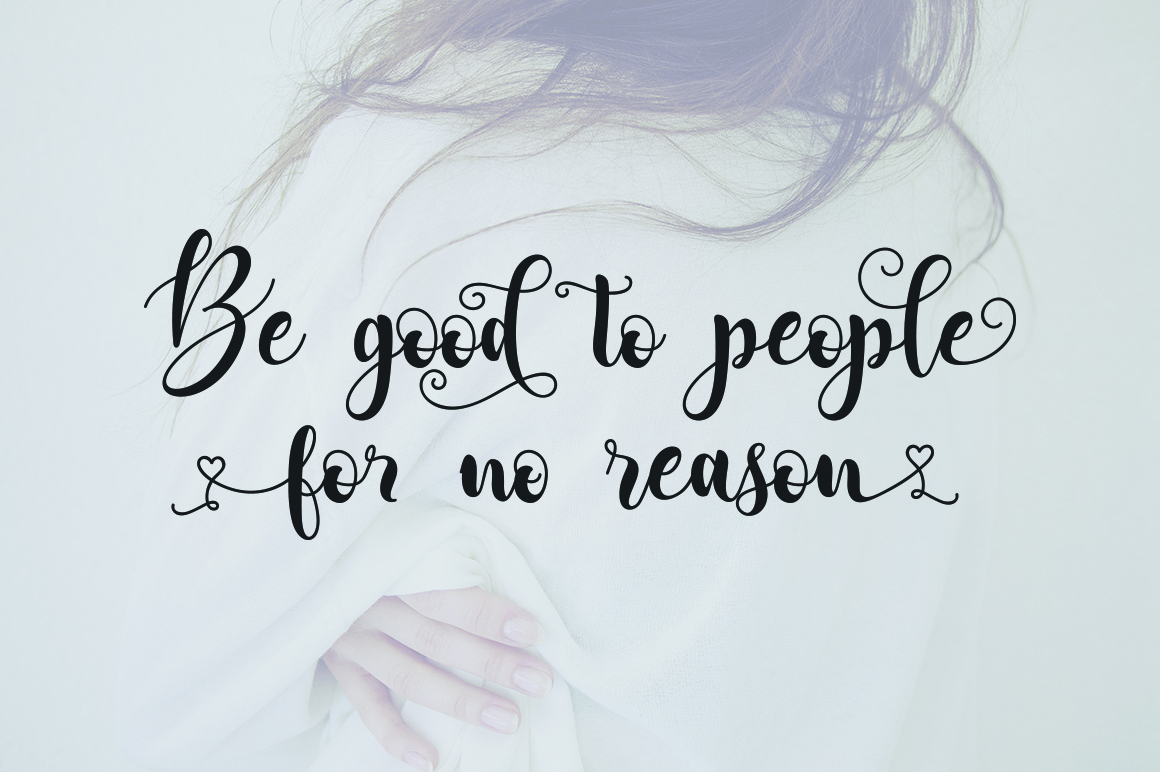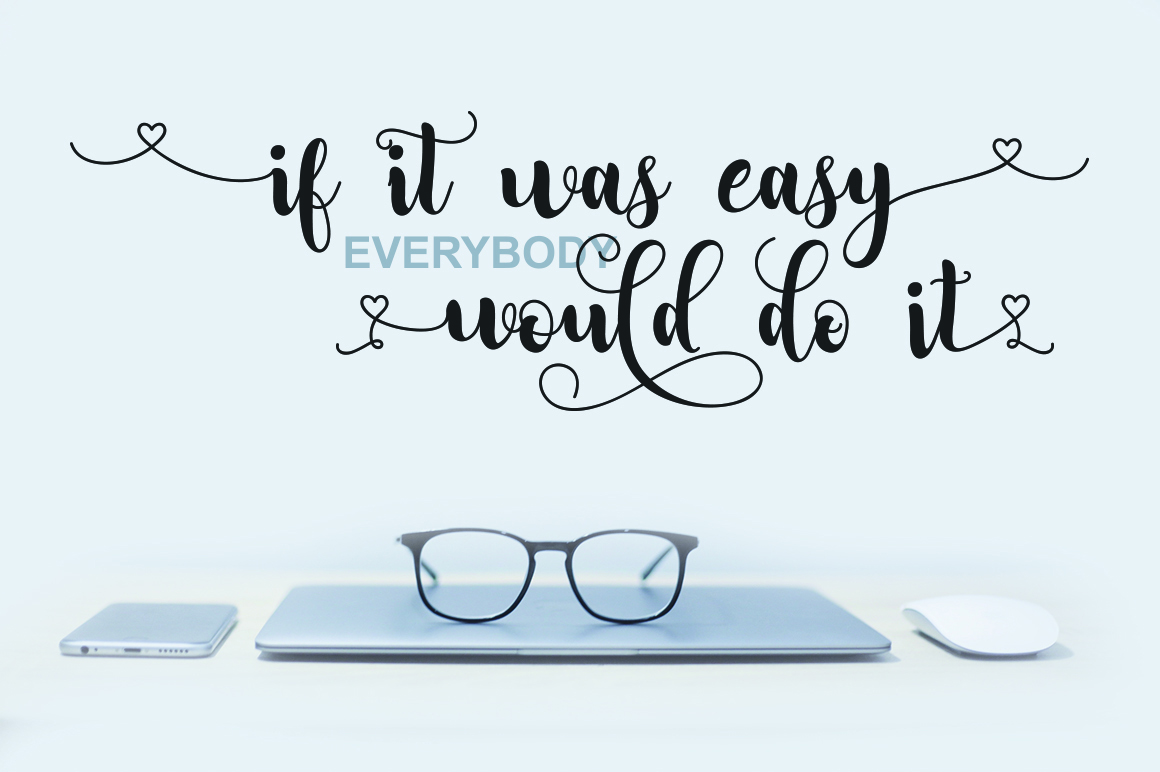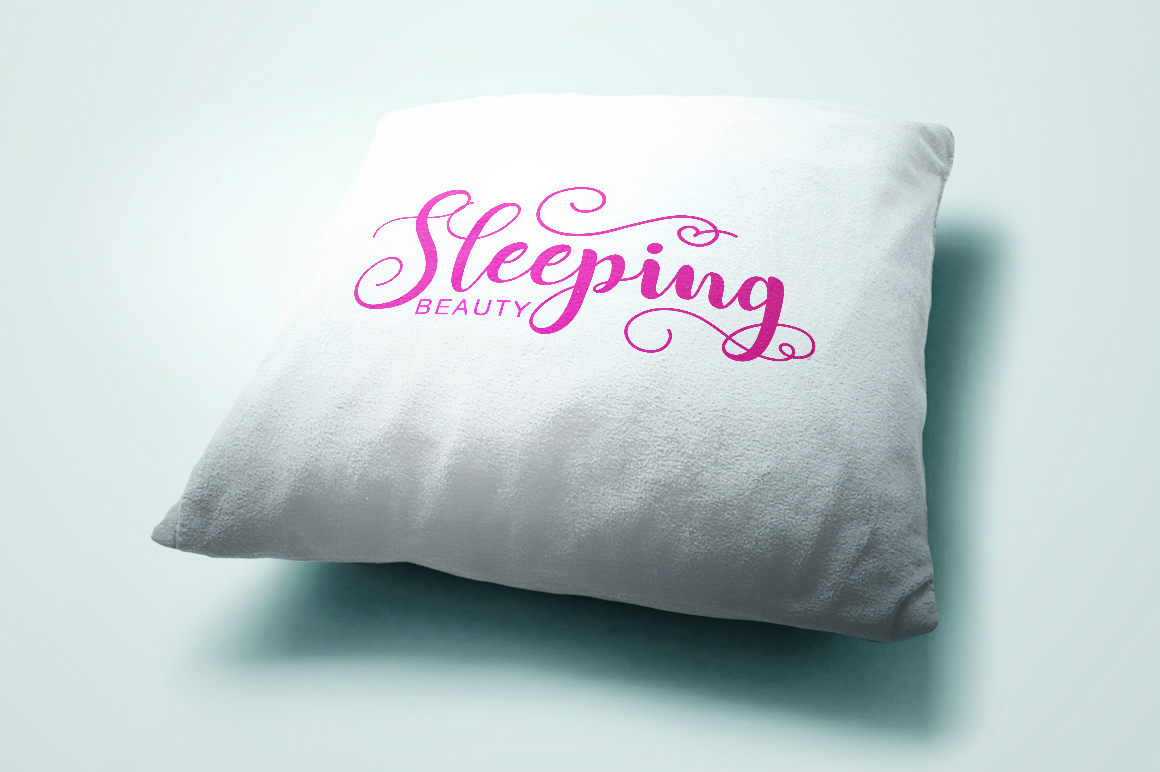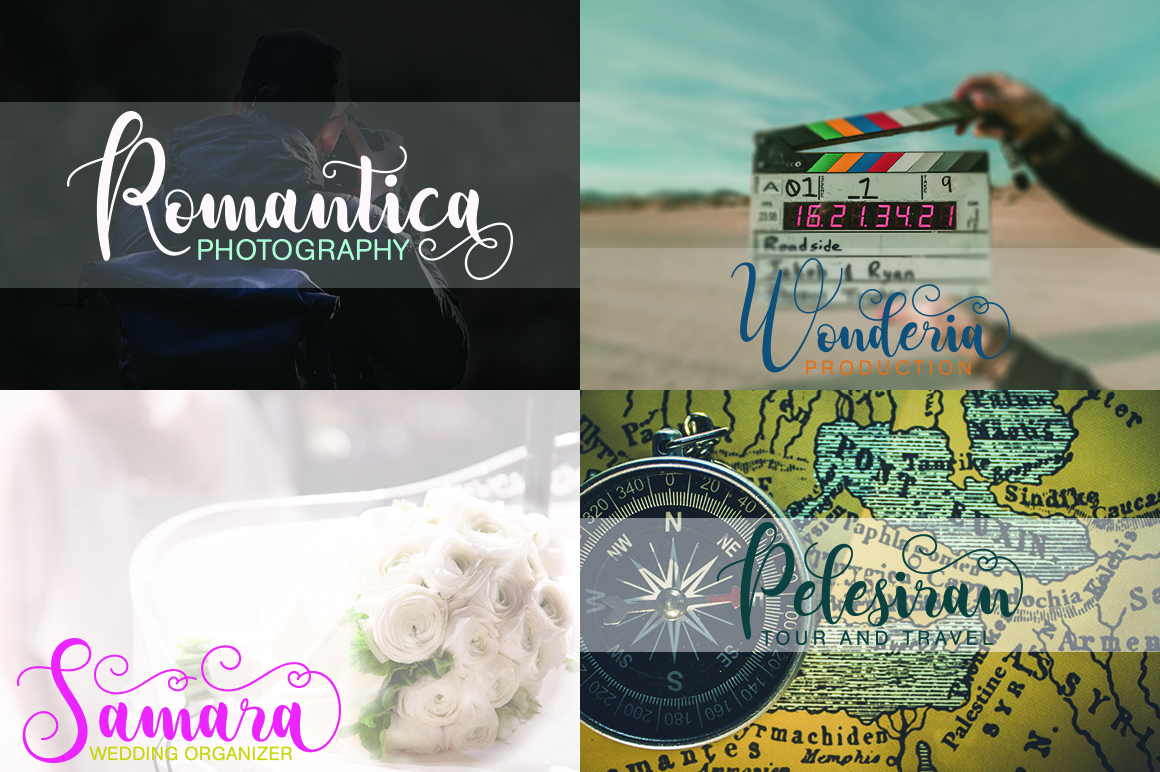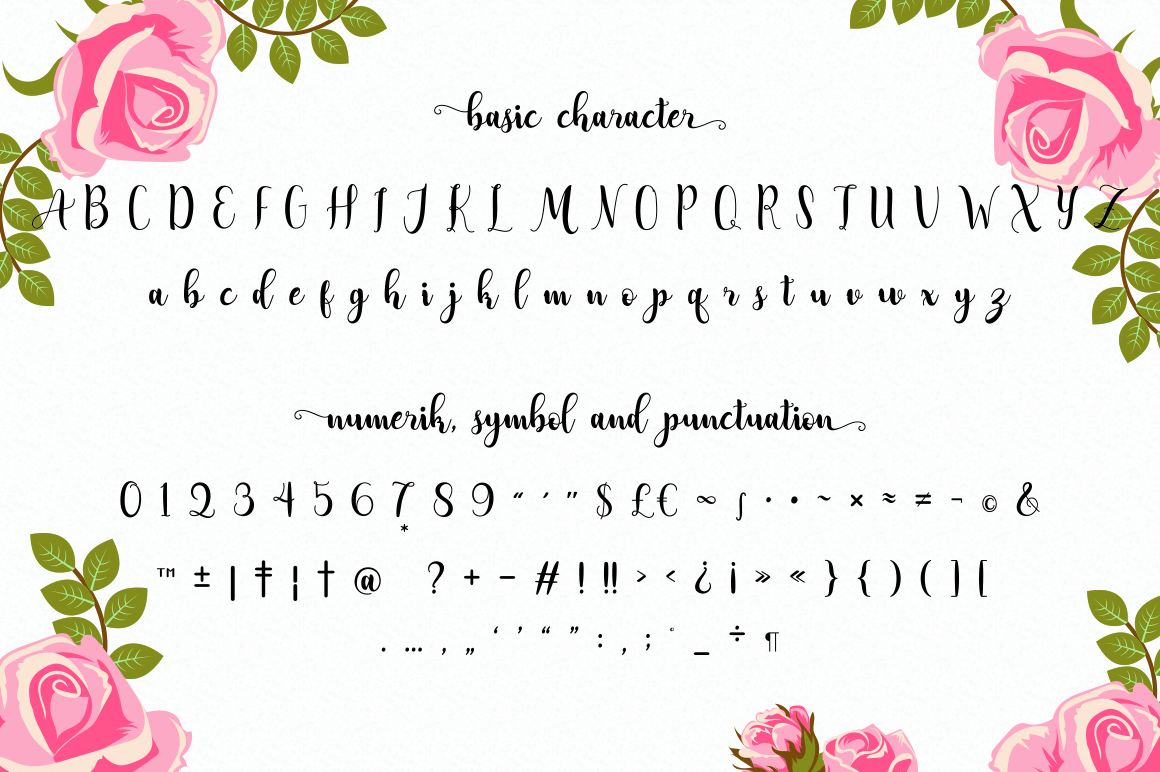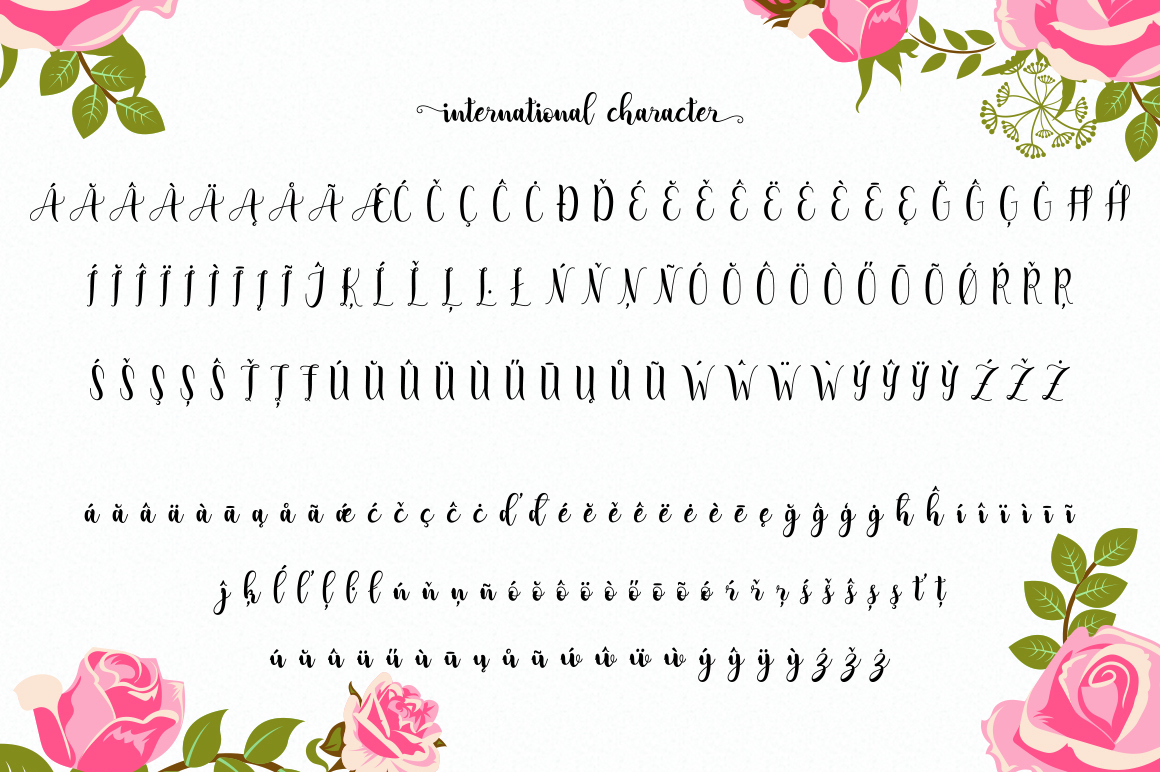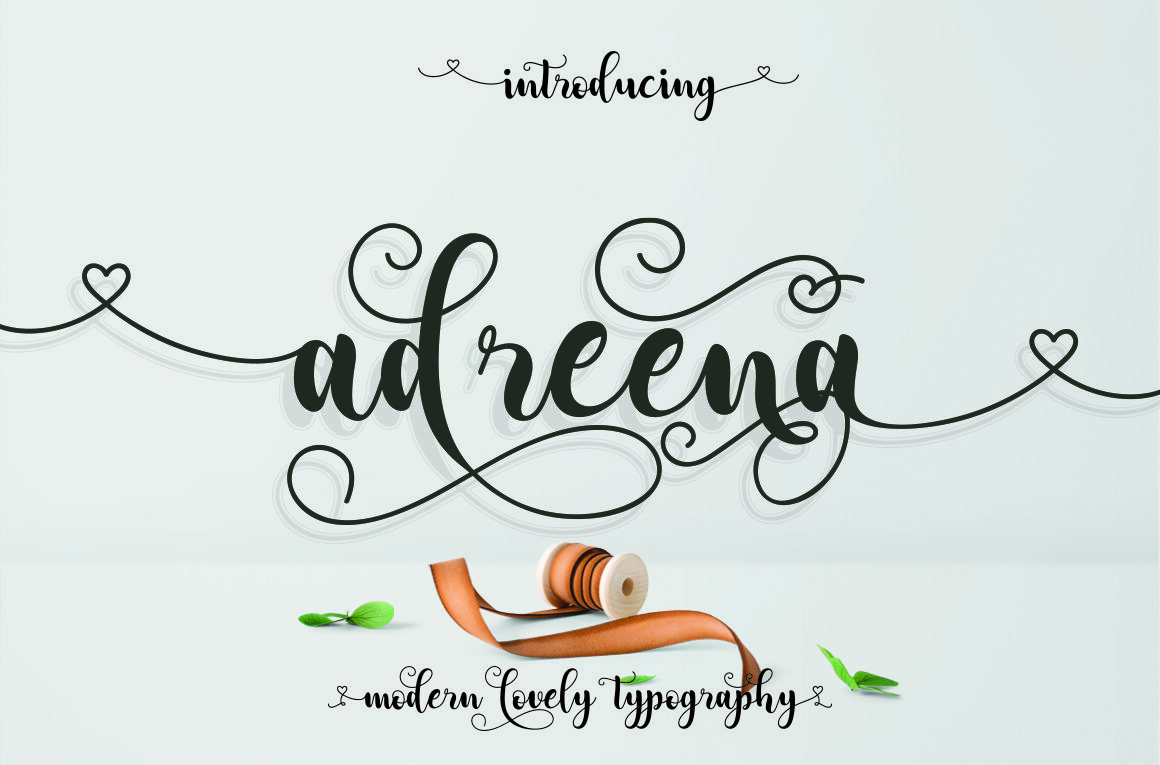
Introducing Adreena Script Font: The Fun and Playful Choice for Stunning Designs
Are you a designer or crafter looking for a font that can add a touch of personality and whimsy to your creations? Look no further than Adreena Script Font! This fun and playful script font is perfect for creating stunning designs that stand out from the crowd. In this article, we’ll take a closer look at Adreena Script Font and explore its features, benefits, and uses.
What is Adreena Script Font?
Adreena Script Font is a modern script font that is designed to be both elegant and playful. It features flowing lines, curly swashes, and a carefree vibe that’s perfect for designs that require a personal touch. The font is highly legible and versatile, making it suitable for a wide range of design projects, from invitations and greeting cards to branding and advertising materials.
Key Features of Adreena Script Font
- Unique and Playful Design: Adreena Script Font boasts a distinctive and eye-catching design that’s sure to grab attention. Its playful curves and swashes add a touch of whimsy to any design.
- Highly Legible: Despite its playful nature, Adreena Script Font is highly legible, even at small sizes. This makes it perfect for use in a variety of design projects.
- Versatile: Adreena Script Font is a versatile font that can be used in a wide range of design projects, from formal to informal.
- Easily Customizable: The font is easily customizable, allowing designers to adjust the size, color, and style to suit their needs.
Benefits of Using Adreena Script Font
So why choose Adreena Script Font for your design projects? Here are just a few benefits of using this amazing font:
- Adds Personality to Your Designs: Adreena Script Font adds a touch of personality and whimsy to your designs, setting them apart from more traditional fonts.
- Perfect for Creative Projects: This font is perfect for creative projects, such as invitations, greeting cards, and branding materials.
- Easy to Read: Adreena Script Font is highly legible, making it easy for readers to quickly scan and understand your message.
- Great for Logos and Branding: The font’s unique design makes it perfect for use in logos and branding materials, helping to create a memorable and recognizable brand identity.
Uses of Adreena Script Font
Adreena Script Font is a versatile font that can be used in a wide range of design projects, including:
- Invitations and Greeting Cards: Add a touch of whimsy and personality to your invitations and greeting cards with Adreena Script Font.
- Branding and Advertising: Use Adreena Script Font to create eye-catching branding materials, such as logos, brochures, and flyers.
- Social Media Graphics: Add a playful touch to your social media graphics, such as Facebook posts and Instagram stories.
- Packaging Design: Use Adreena Script Font to add a personal touch to your packaging design, making your products stand out on store shelves.
In conclusion, Adreena Script Font is a fun and playful script font that’s perfect for designers and crafters looking to add a touch of personality to their creations. With its unique design, high legibility, and versatility, Adreena Script Font is sure to become a go-to font for a wide range of design projects. So why not give it a try and see how it can elevate your designs to the next level?
Whether you’re a seasoned designer or just starting out, Adreena Script Font is a great addition to your font library. Its ease of use, customizability, and unique design make it a valuable resource for any design project. So go ahead, get creative, and see what amazing designs you can create with Adreena Script Font!